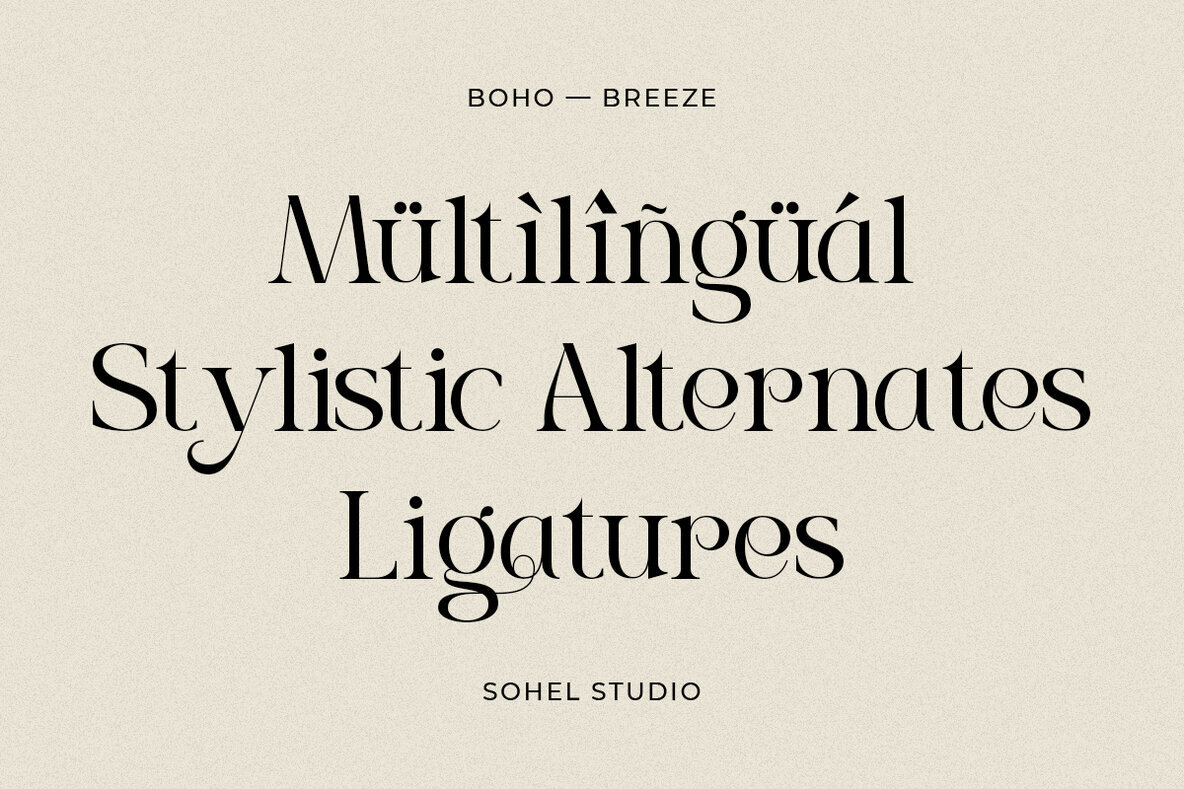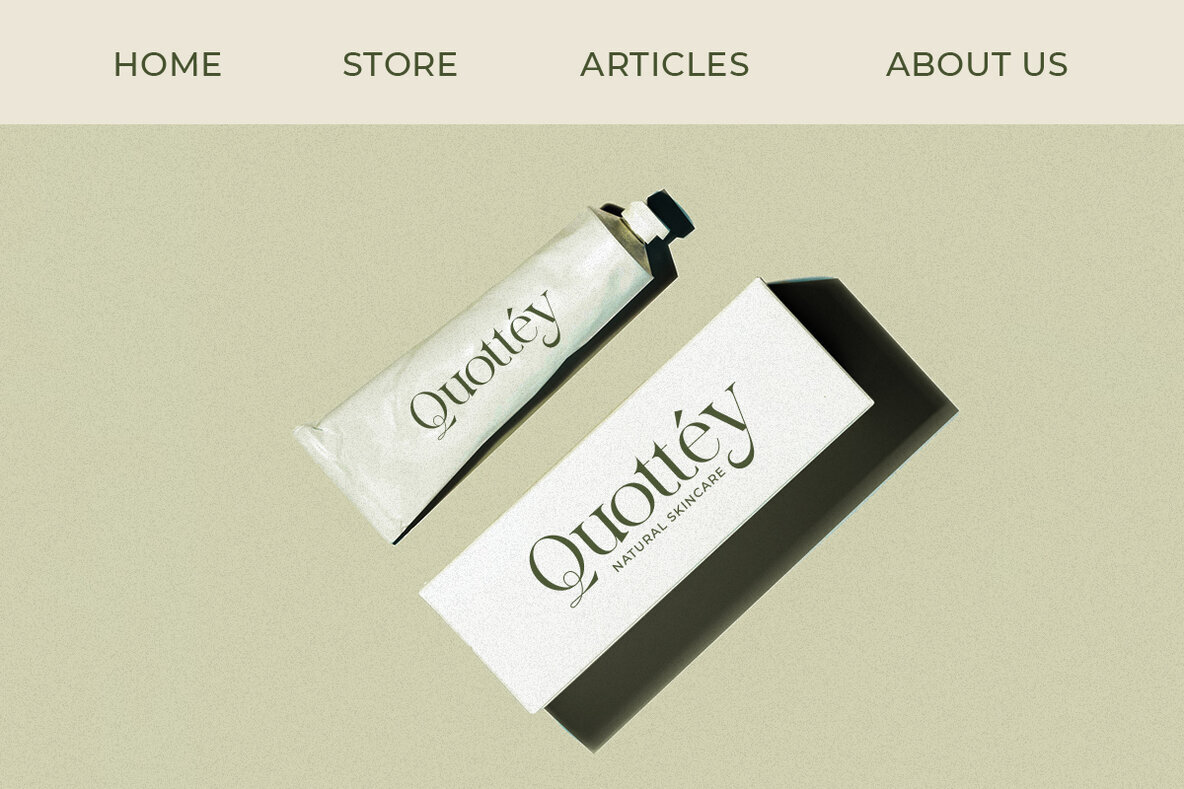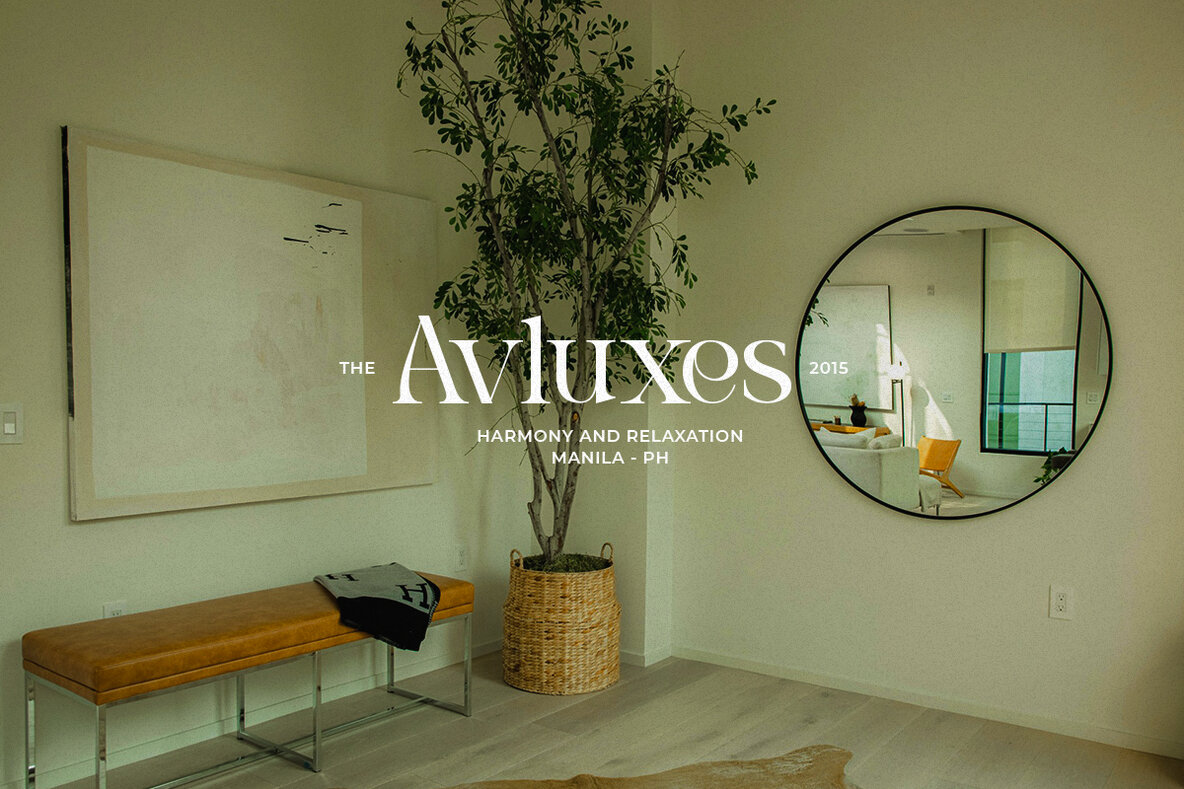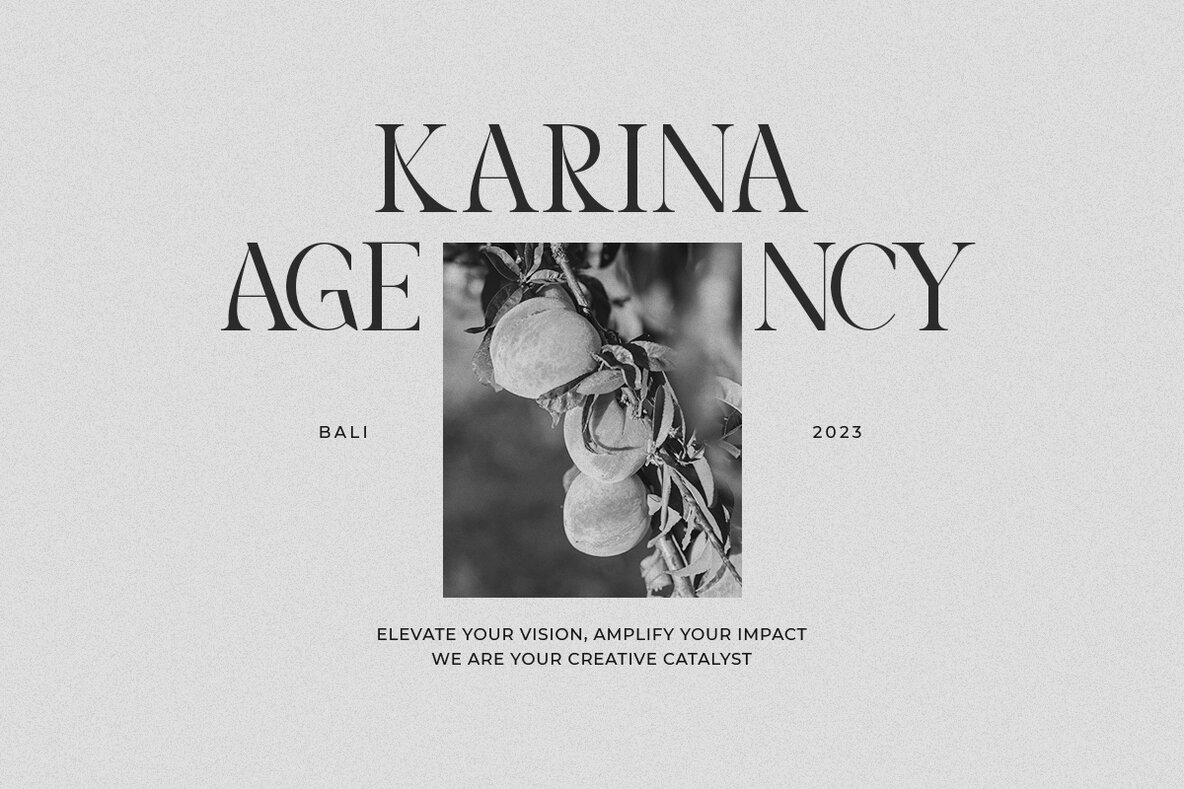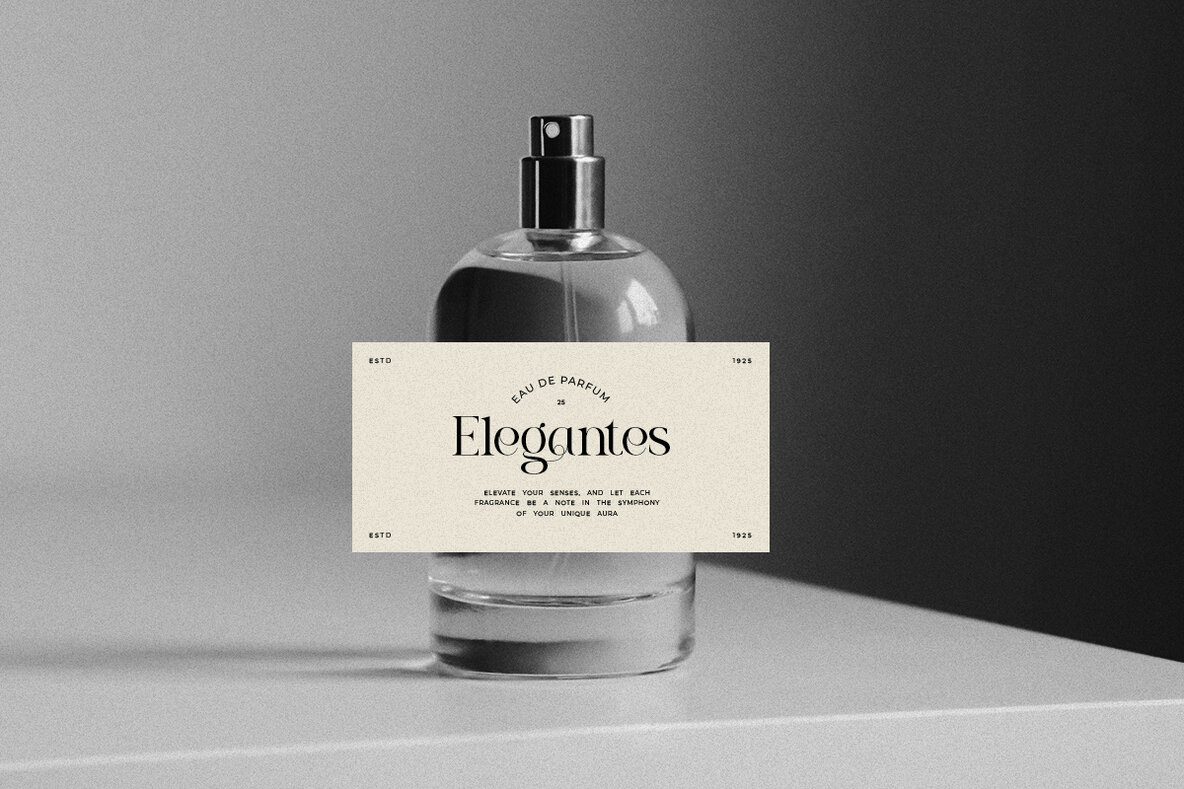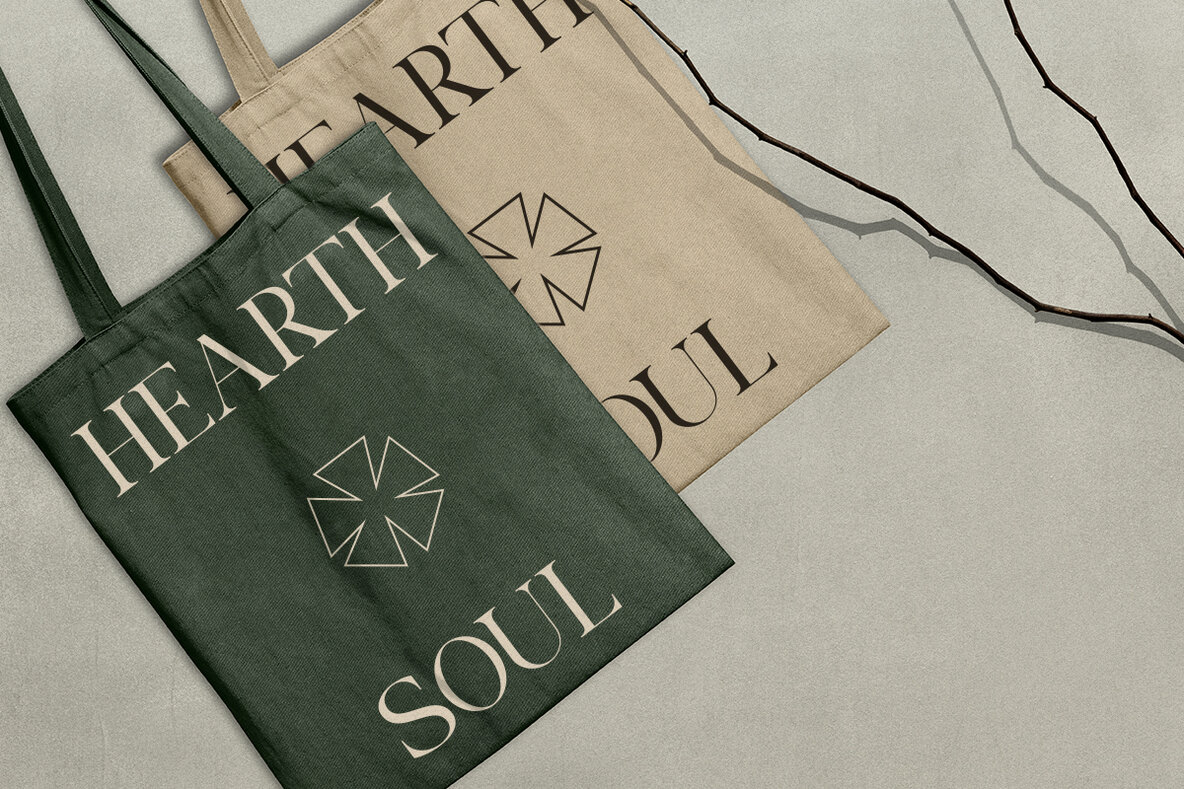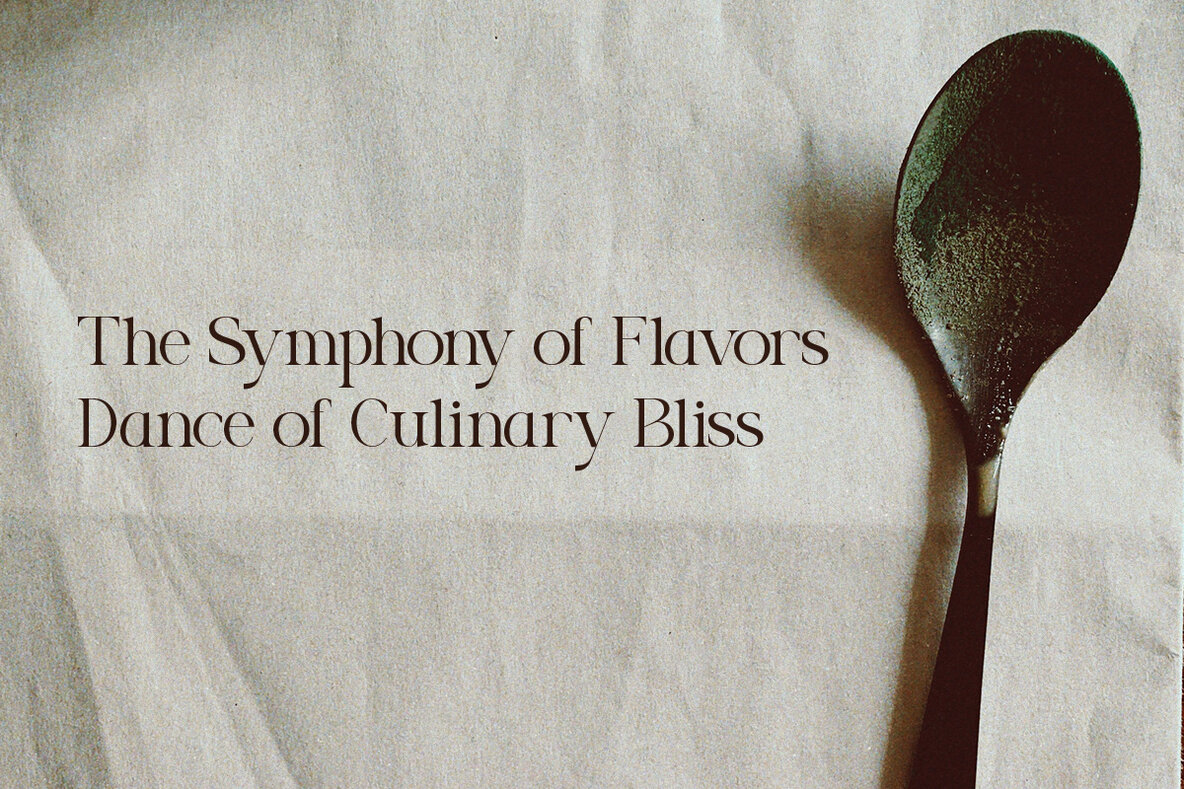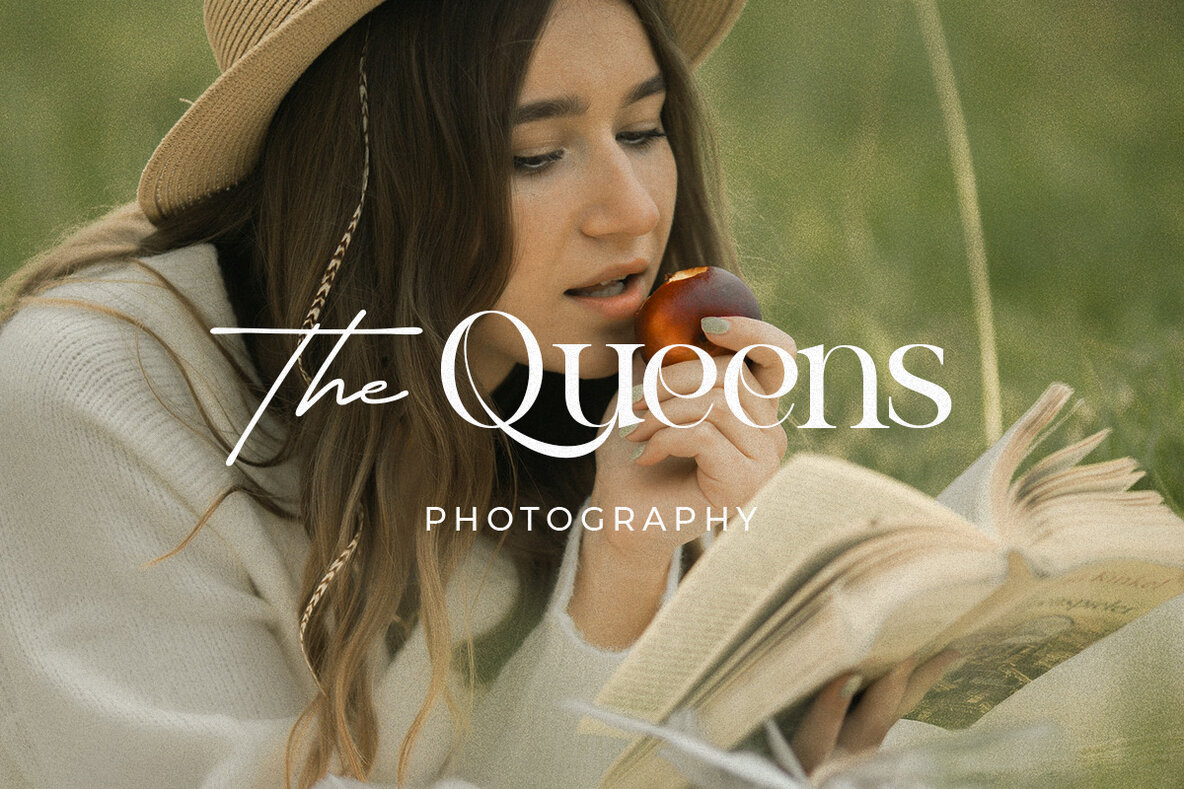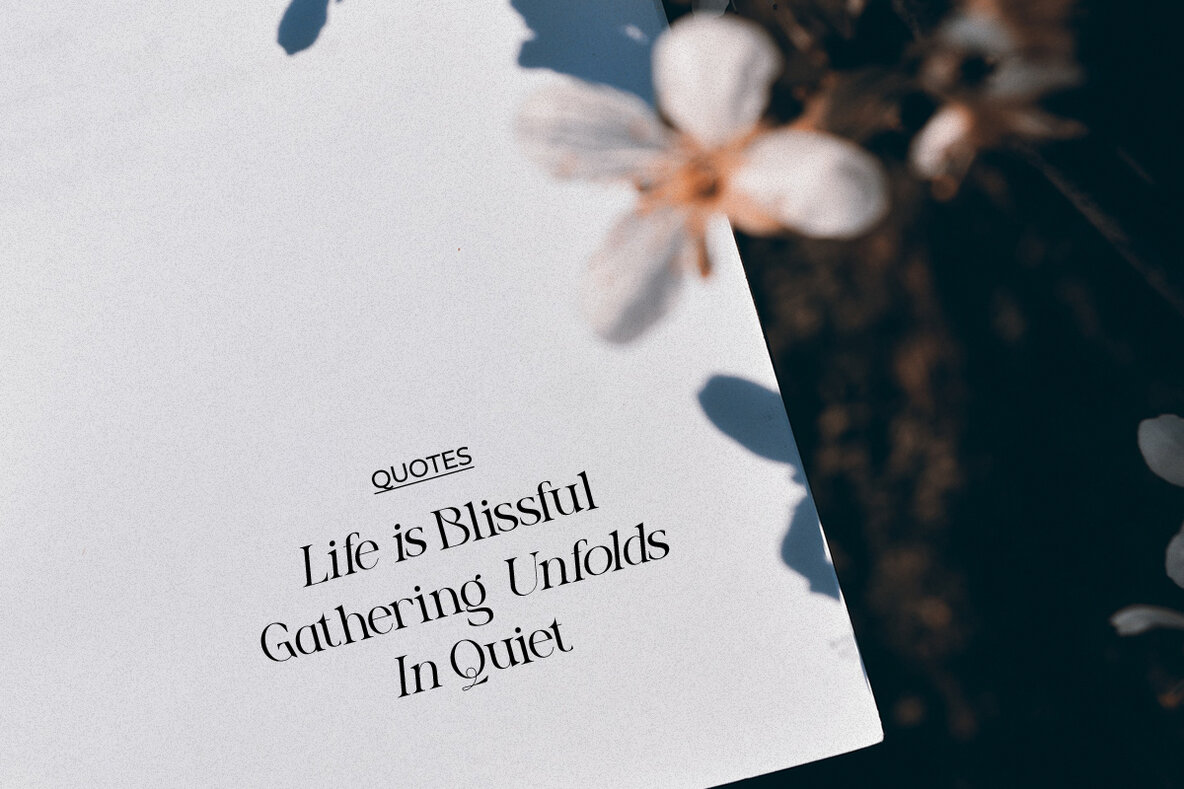
Boho Breeze Font
Boho Breeze Regular
Boho Breeze is a modern elegant serif typeface known for its unique alternatives and impeccable kerning. Designed with multilingual support, it's perfect for projects requiring a touch of elegance and luxury. Whether you're working on a sophisticated logo, a classy editorial design, or a fashion brand promotion, Boho Breeze provides the perfect solution. This typeface is suitable for a wide array of applications including: If you encounter any issues or have feedback, please feel free to contact us. We value your input and strive to enhance our products based on your suggestions. Thank you and have a wonderful day.Boho Breeze: Modern Elegant Serif Typeface